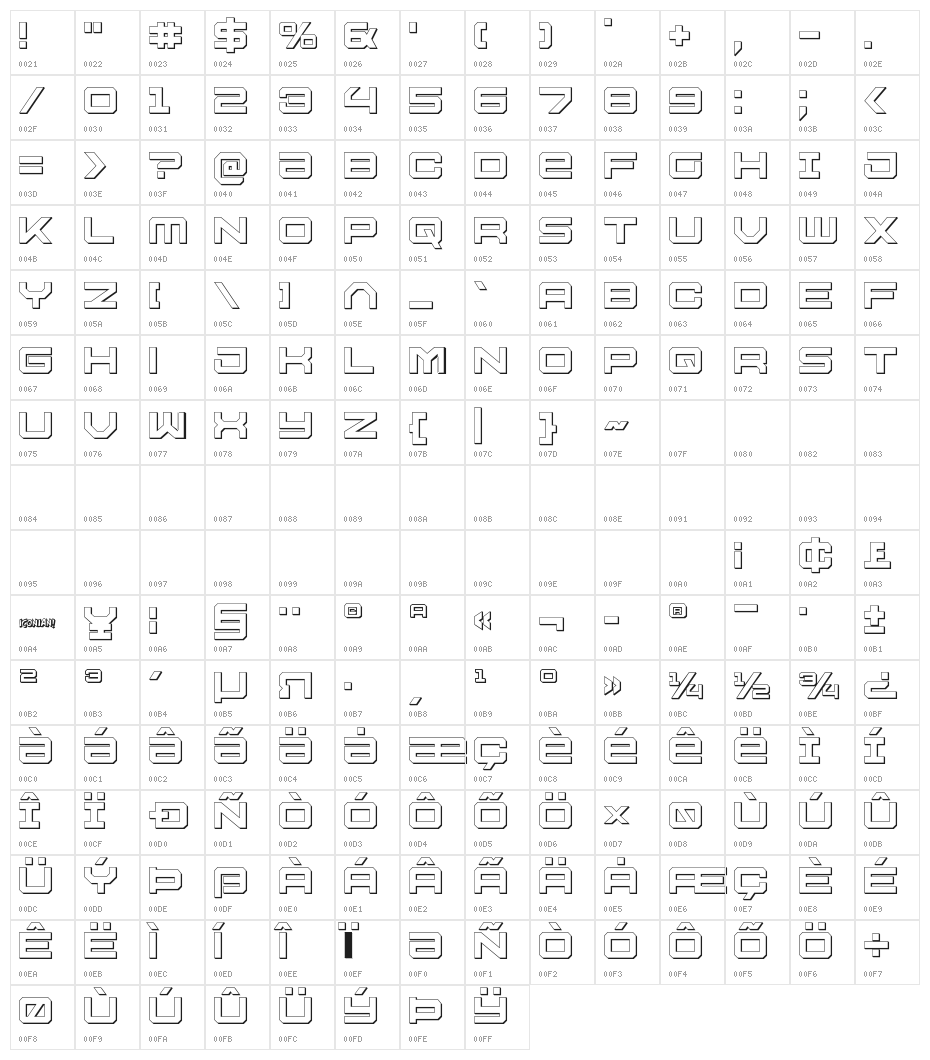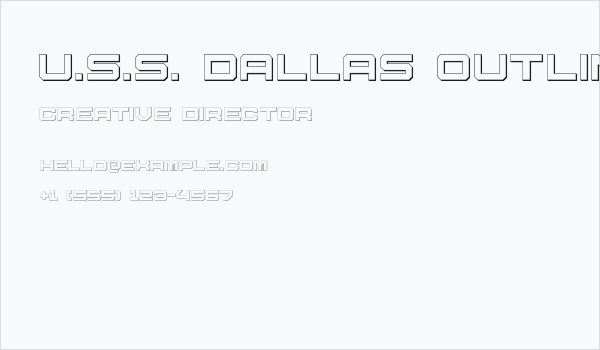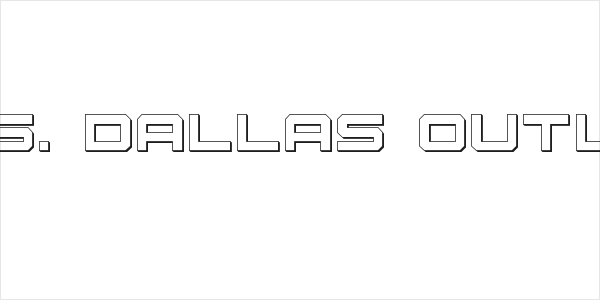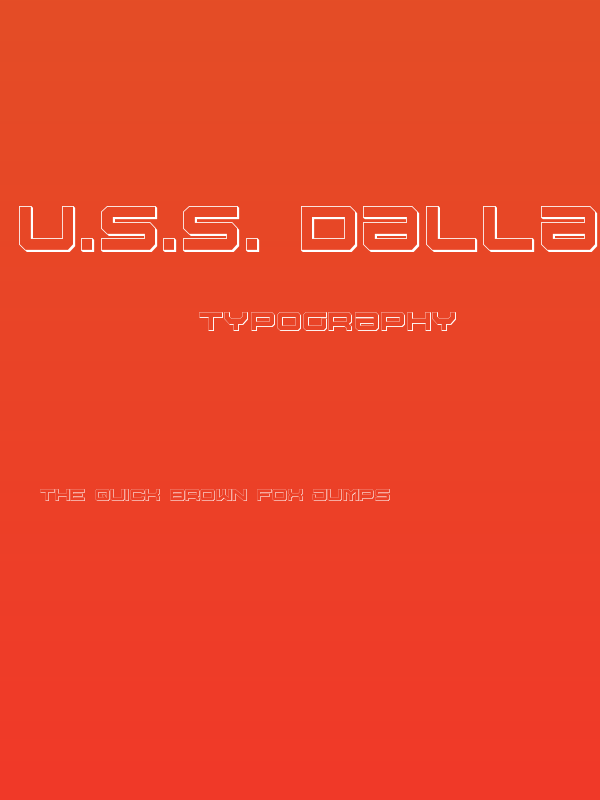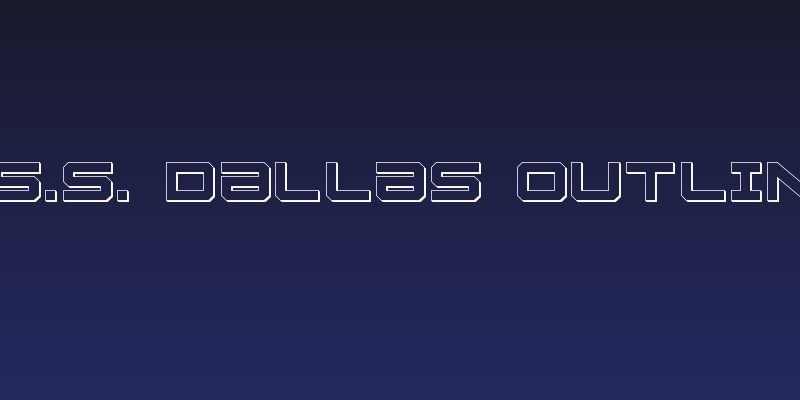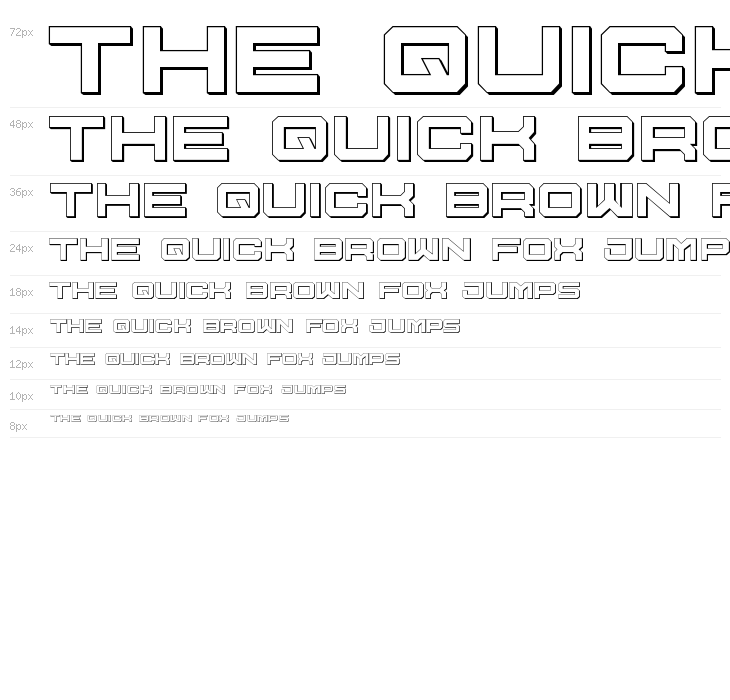
U.S.S. Dallas Outline Font
U.S.S. Dallas Outline Description
This font features a bold, geometric outline style that gives it a futuristic and technical appearance. The characters are constructed with sharp angles and straight lines, creating a sense of precision and modernity. The outline design adds a layer of depth, making the letters appear as if they are three-dimensional. This style is reminiscent of digital or technological themes, suitable for projects that require a modern and edgy look. The uppercase and lowercase letters maintain a consistent design, ensuring uniformity across different text sizes. Numbers and special characters are also included, following the same outlined aesthetic.
| Proposed Projects | Ideal for technology branding, video game titles, sci-fi movie posters, and digital interfaces. |